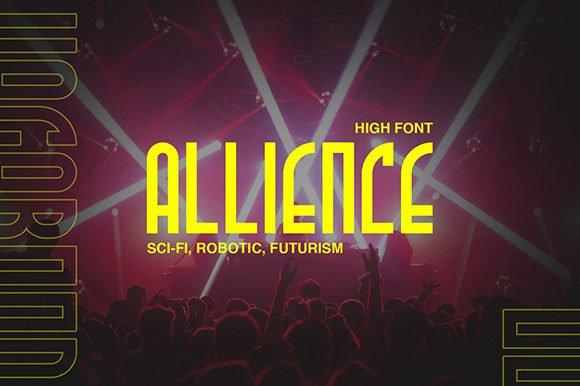
Unlocking the Power of Futuristic Typography
Have you ever found yourself stuck in a creative rut, staring at a blank canvas, waiting for inspiration to strike? I know I have. Sometimes, all it takes is a single font to transport us to a world of limitless possibilities. For me, that font is Allience Font – a bold, robotic, and futuristic display font that adds a unique touch to any design.
Designed for web designs, business cards, and any other project that demands attention, Allience Font is a valuable tool for designers looking to make a statement. Its futuristic aesthetic is perfect for conveying a sense of innovation and forward-thinking, making it an ideal choice for tech-savvy brands and companies pushing the boundaries of their industry.
Whether you’re a seasoned designer or just starting out, Allience Font is sure to inspire your next creative project and take your designs to the next level.
Key Features of Alliance Font
- Font Family: Alliance is a sans-serif font family designed for clear and modern typography. It is available in 6 weights: Light, Regular, Medium, Bold, Extra Bold, and Black.
- Character Set: Alliance Font supports a wide range of languages, including Latin, Cyrillic, and Greek scripts, making it suitable for global applications.
- Unique Characteristics: Alliance Font features a clean and minimalist design, with a focus on legibility and readability. Its unique characteristics include a subtle x-height, a carefully crafted letter spacing, and a distinctive terminal on the strokes, making it a versatile choice for various design applications.
Designer Review: Allience Font
Overall, I’m a bit mixed on the Allience Font. On one hand, I think it has some great qualities that make it worth considering for certain projects.
- Clean and modern aesthetic
- Good for titles and headings due to its boldness
- Works well in digital and print applications
- Has a wide range of weights and styles to choose from
However, I do have some concerns about its limitations.
- May not be the best choice for body text due to its boldness
- Can feel a bit generic and overused
- Not ideal for projects that require a lot of subtlety and nuance
- May not be suitable for certain languages or scripts
Overall, I think the Allience Font is a solid choice for certain projects, but it’s not without its limitations. If you’re looking for a clean and modern font for titles or headings, it’s definitely worth considering. However, if you need a font for body text or require a more subtle aesthetic, you may want to look elsewhere.
Allience Font is ideal for use in:
- Logo design and branding
- Corporate identity and business materials
- Editorial and publishing materials
Q: Can I customize the Alliance Font to fit my specific design needs?
Yes, Alliance Font is designed to be highly customizable. With its advanced OpenType features, you can access a wide range of typographic options, including ligatures, swashes, and stylistic sets. This allows you to tailor the font to fit your specific design needs and create unique and distinctive typographic styles.